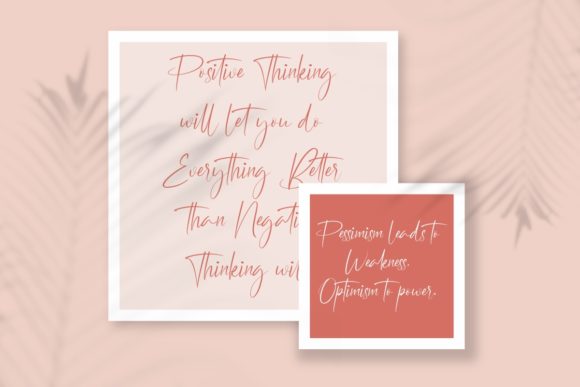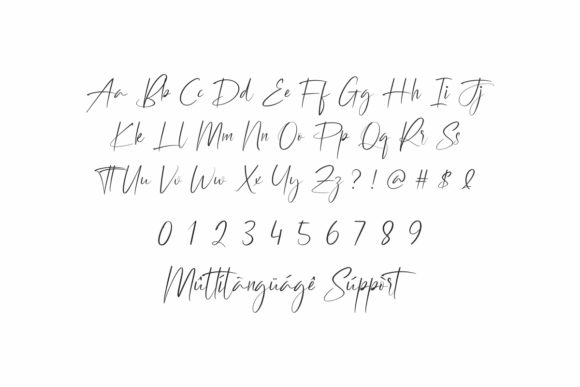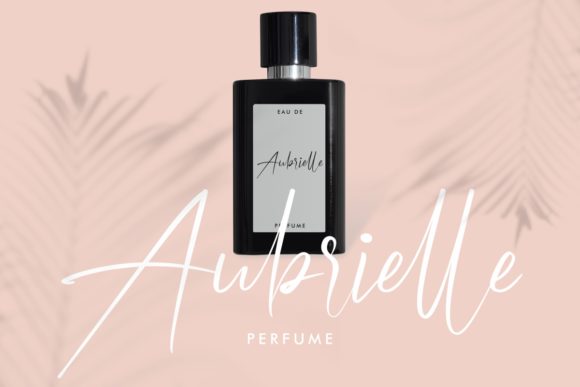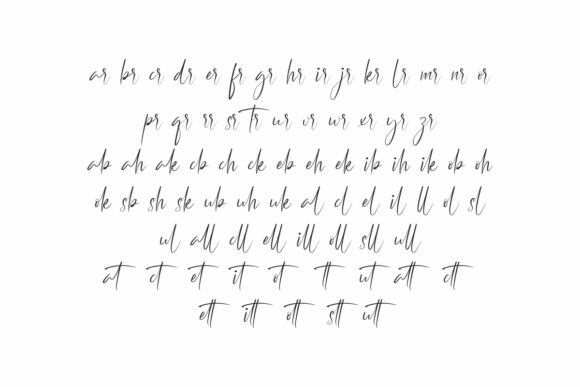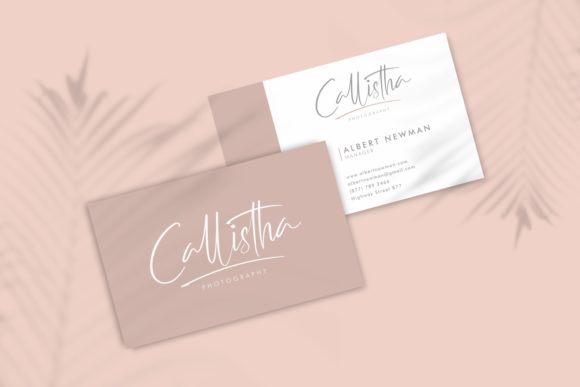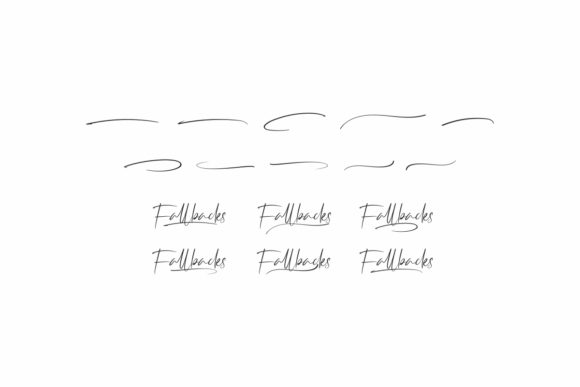
Introduction to Fallbacks Font
As a designer, there’s nothing quite like the rush of excitement you get when you’re working on a creative project and you stumble upon the perfect font to bring your vision to life. It’s that moment when everything falls into place, and your design starts to take shape. For me, that moment came when I discovered the Fallbacks Font. This stunning handwritten font has been a game-changer for my designs, and I’m excited to share it with you.
The Fallbacks Font is more than just a pretty face – it’s a valuable resource for designers who are looking for a high-quality font that can elevate their work. With its beautiful, well-balanced characters and stunning alternates, it’s the perfect addition to any design project. Whether you’re working on a branding project, a social media graphic, or a website, the Fallbacks Font is sure to impress. And the best part? It’s available for free download, making it a transparent background that won’t break the bank.
Key Features of Fallbacks Font
- Unique, elegant font style with a transparent background, ideal for various design applications
Honest Review: Fallbacks Font
As a designer, I’m always on the lookout for high-quality design resources to elevate my creative projects. Recently, I had the chance to try out the Fallbacks Font, and here’s my honest review.
- ✨ The font is a great addition to any design project, offering a unique and modern aesthetic.
- ⚠️ The font may not be suitable for projects requiring a large number of customizations, as it’s primarily designed for a specific aesthetic.
- ⚠️ Some users may find the font’s unique style a bit too bold or overpowering for certain design contexts.
Overall, I was impressed with the Fallbacks Font’s potential to elevate my design projects. While it may not be the best fit for every project, it’s certainly a valuable addition to my design resource library. If you’re looking for a unique and modern font for your next creative project, the Fallbacks Font is definitely worth checking out.
Fallbacks Font
The Fallbacks Font is ideal for use in a variety of creative projects, including graphics, presentations, and documents. Its transparent background and high-quality design make it a versatile resource for designers.
Getting the Most Out of It
To get the most out of the Fallbacks Font, be sure to experiment with different font sizes, colors, and styles to find the perfect combination for your design. You can also use it in conjunction with other design resources to create a unique and eye-catching look.
Alternatives to Fallbacks Font
Roboto compares favorably to Fallbacks Font in terms of its sleek and sophisticated design, making it a great choice for designers looking for a high-quality alternative.
Montserrat is a geometric sans-serif font designed for use in urban environments, such as city streets and public spaces. It’s a free download and is available in multiple weights and styles. Montserrat is perfect for designing creative projects that require a bold and edgy look.